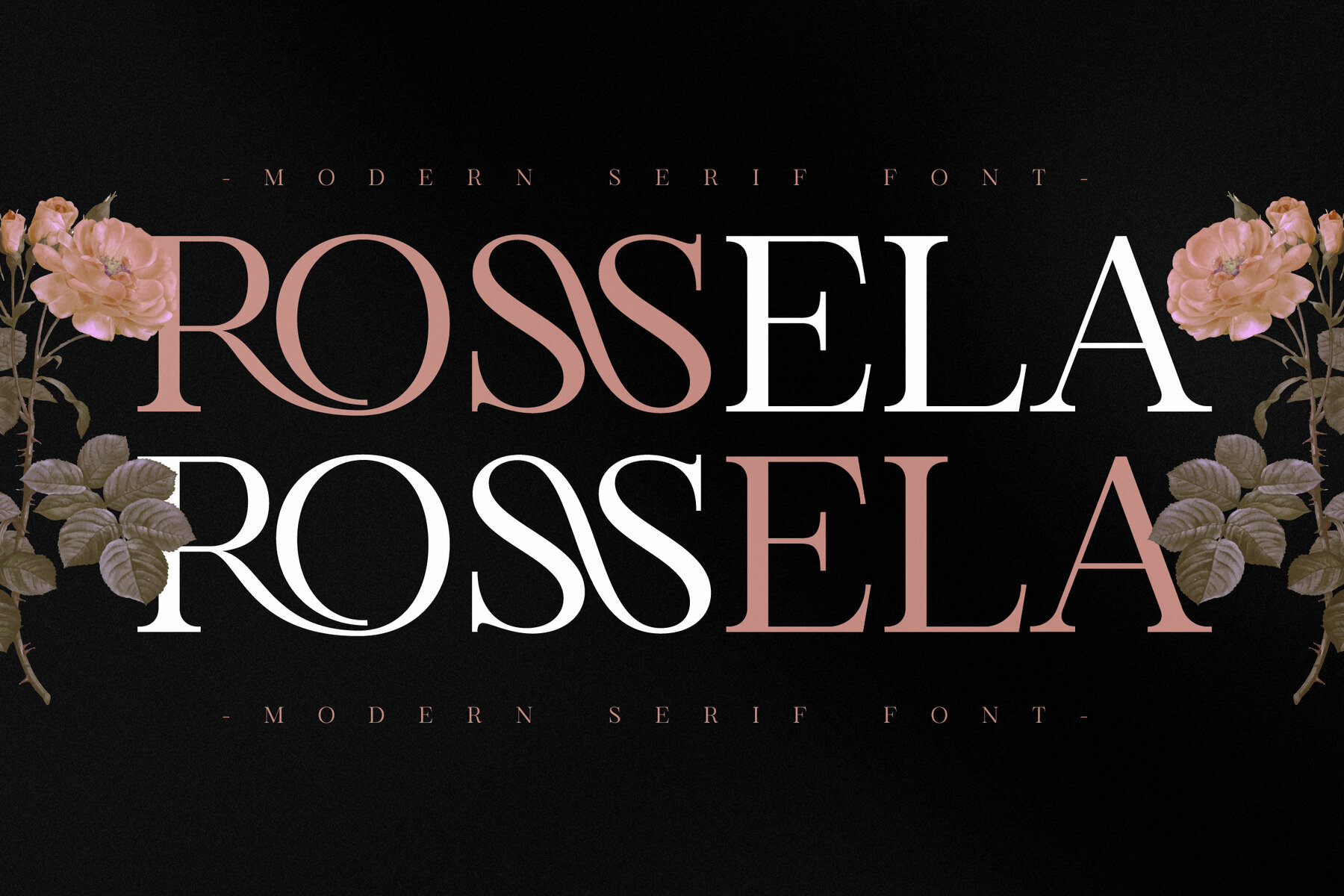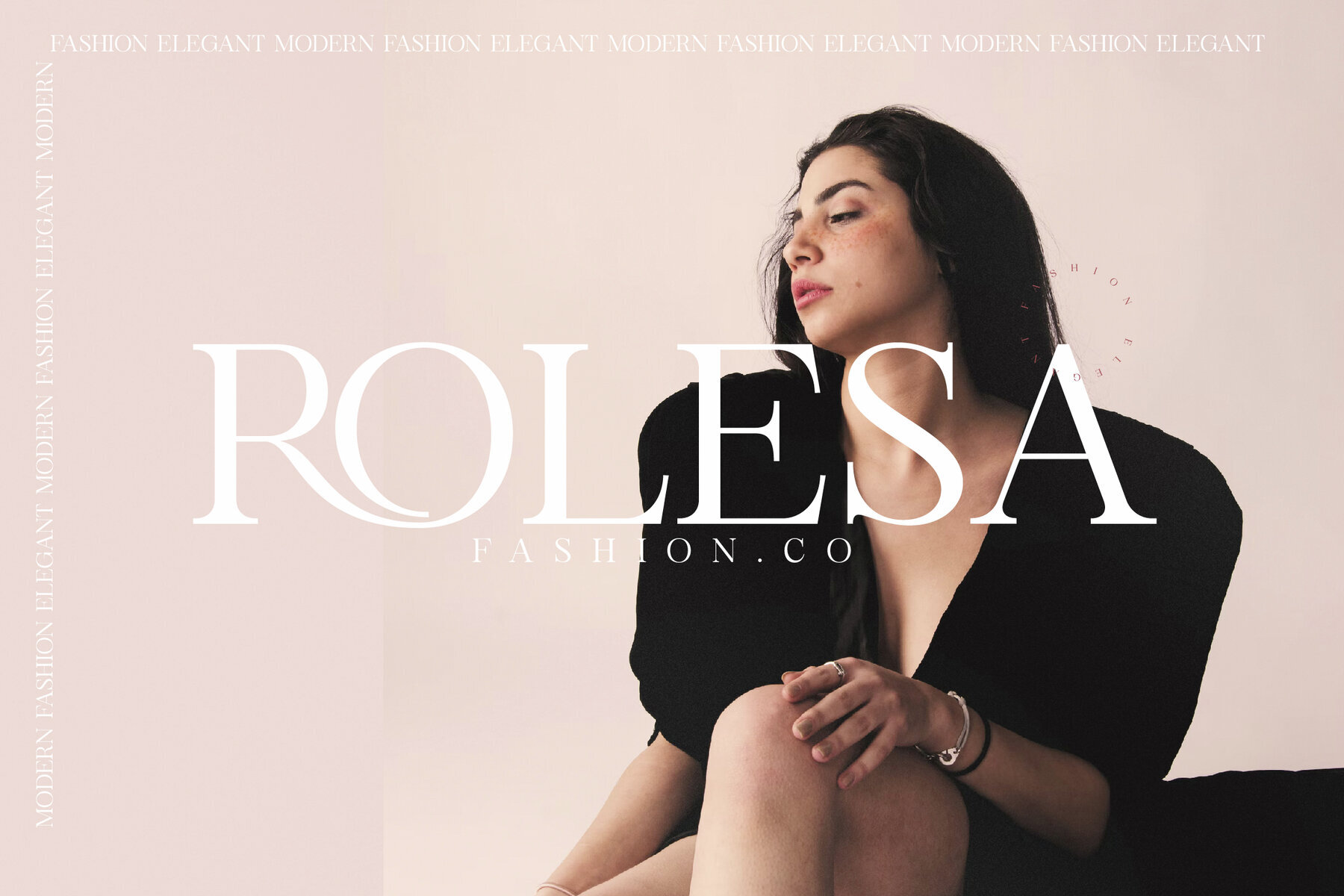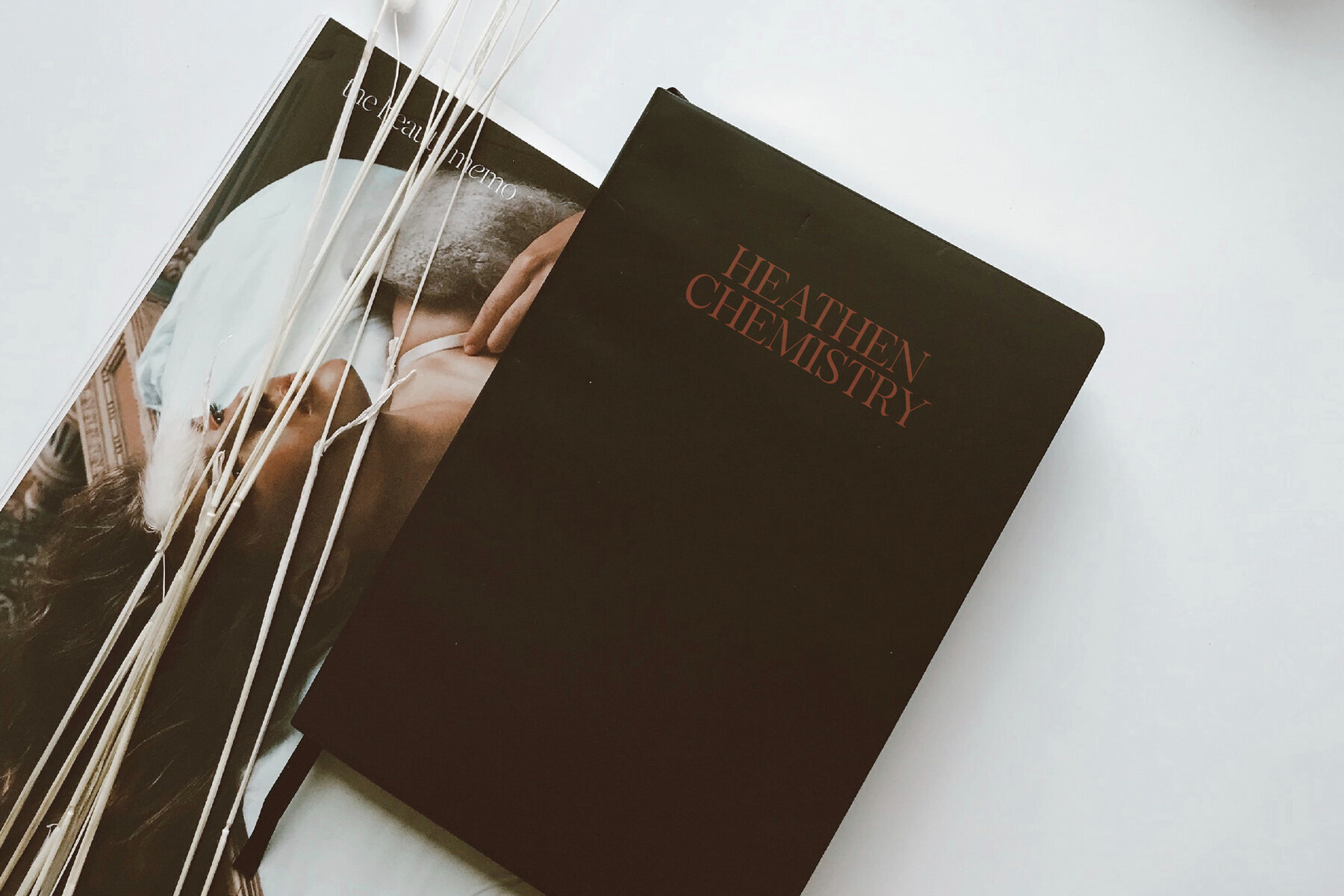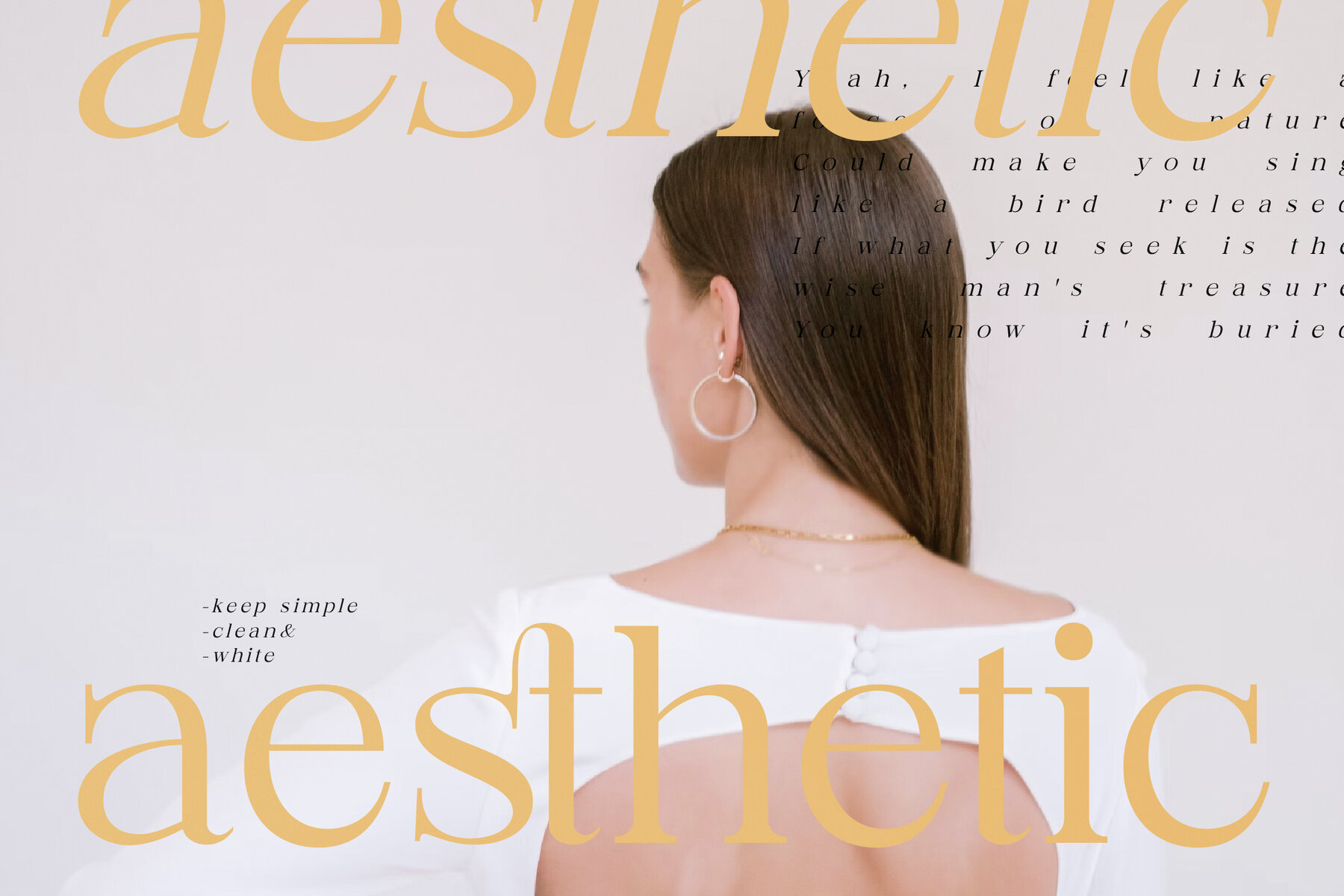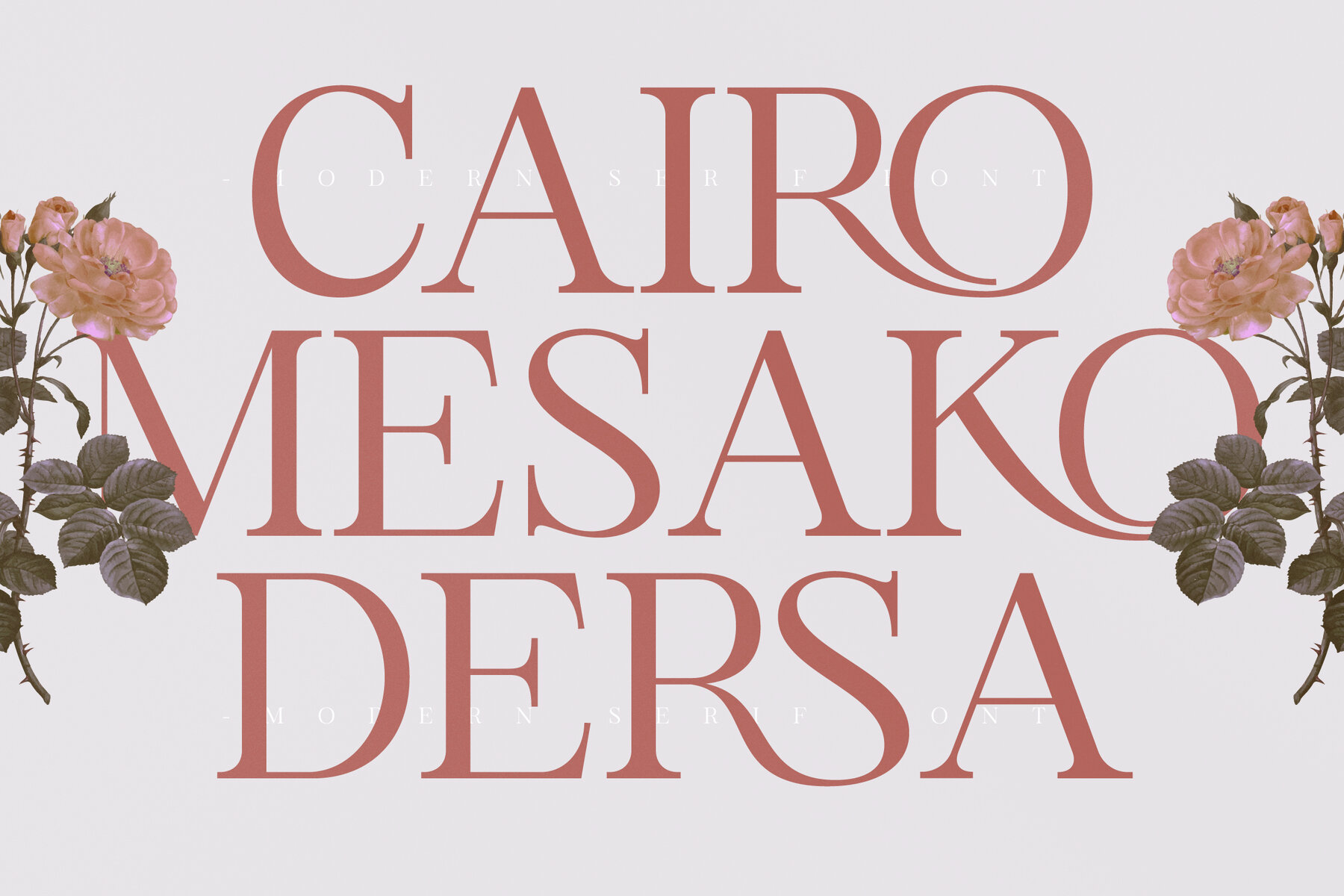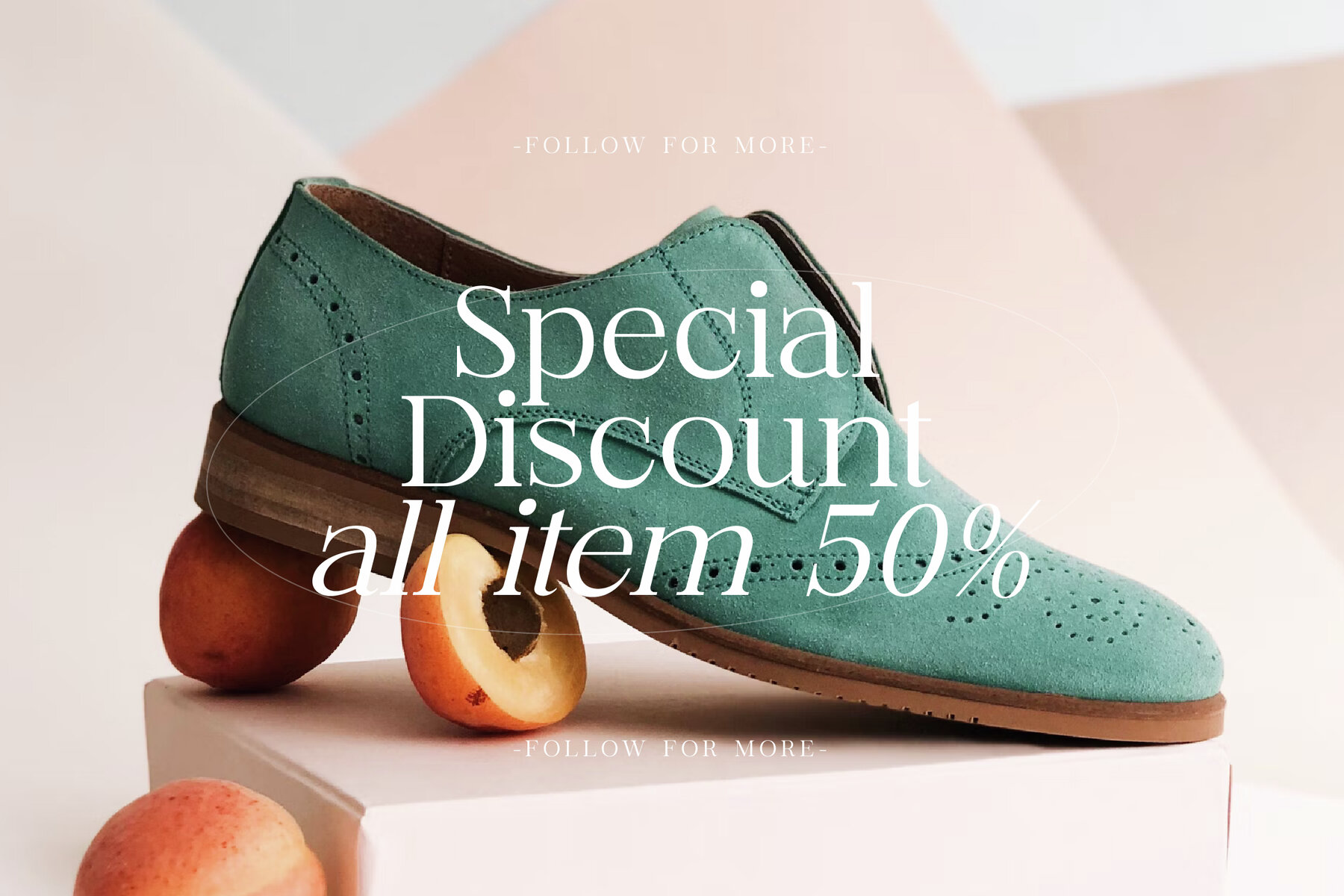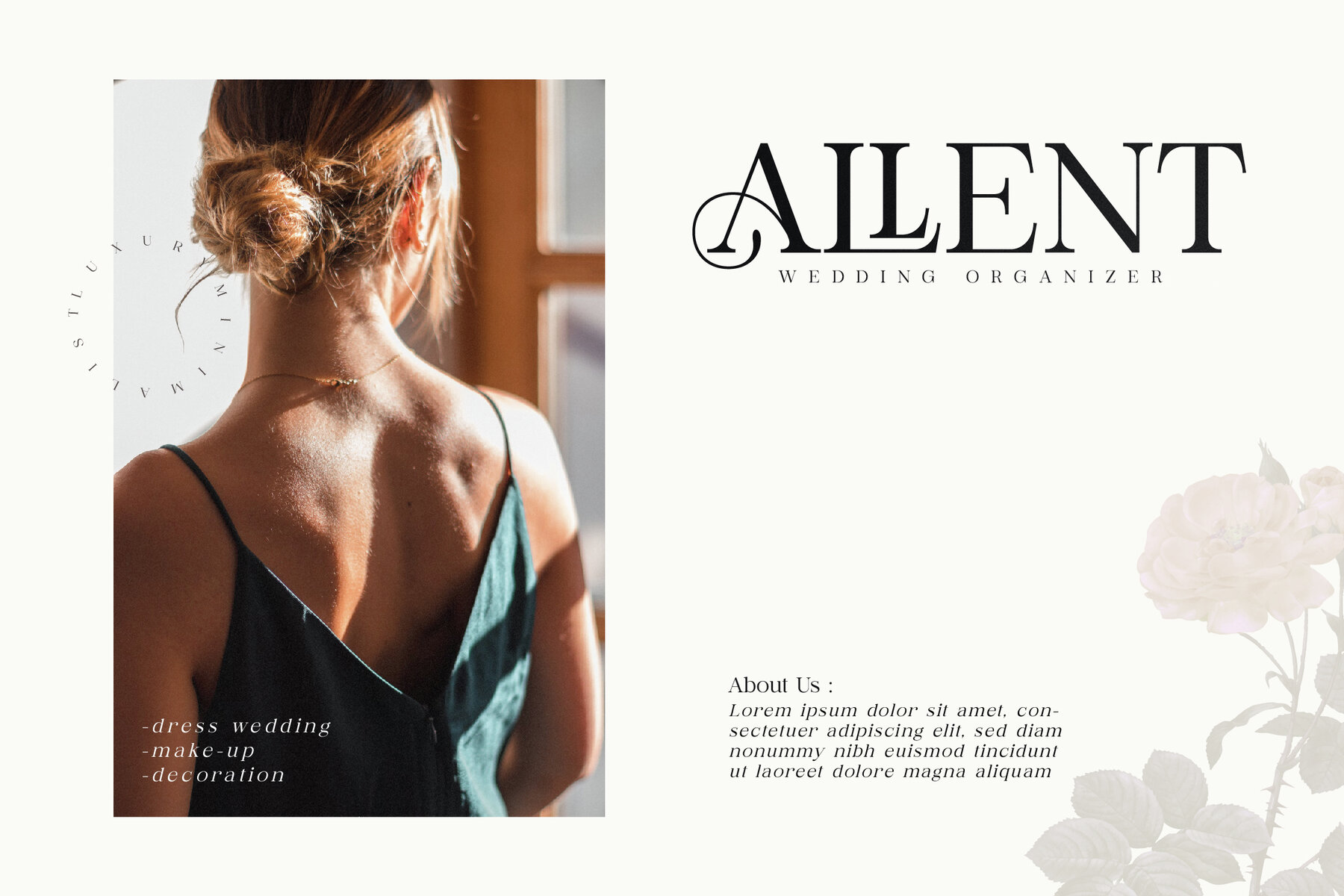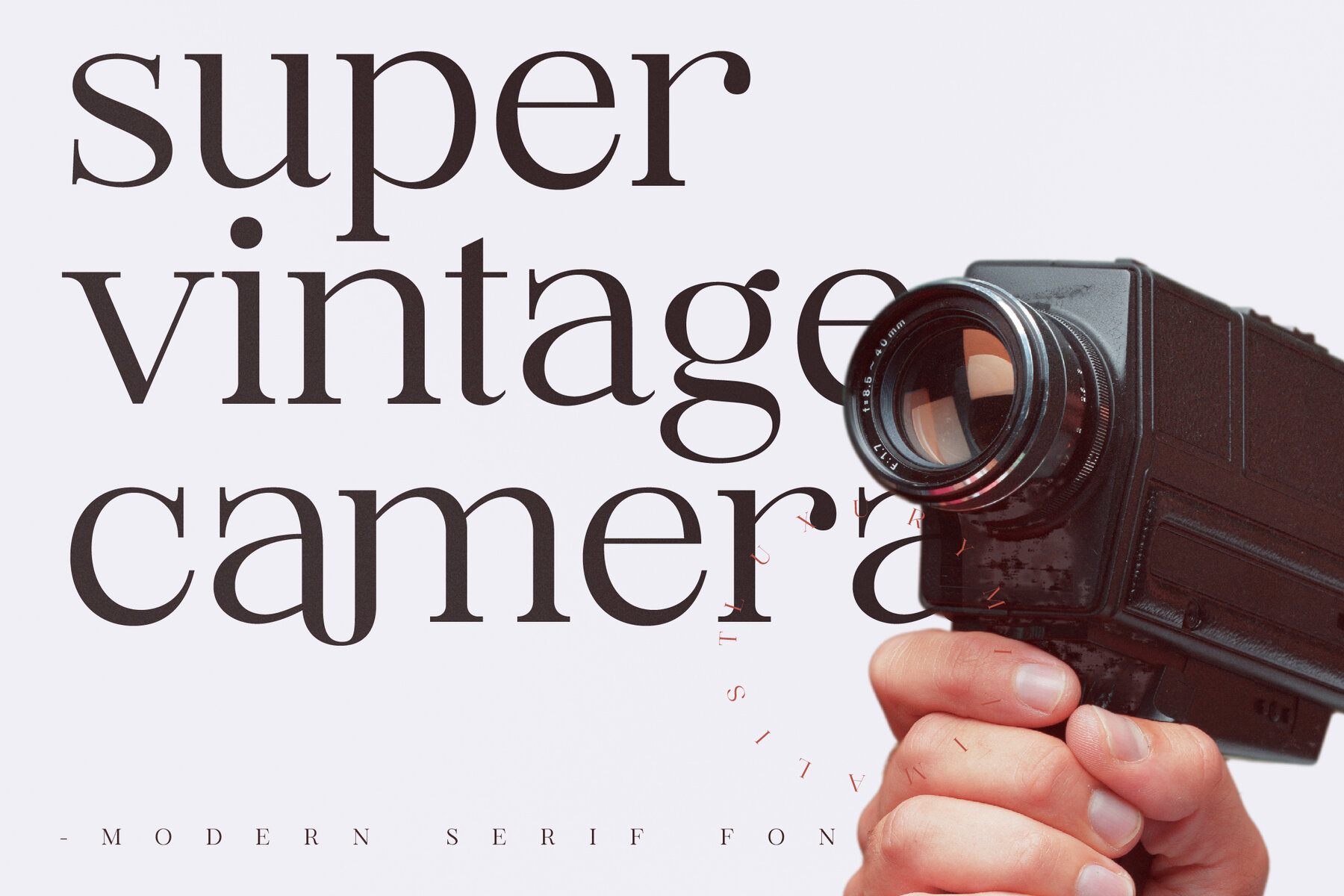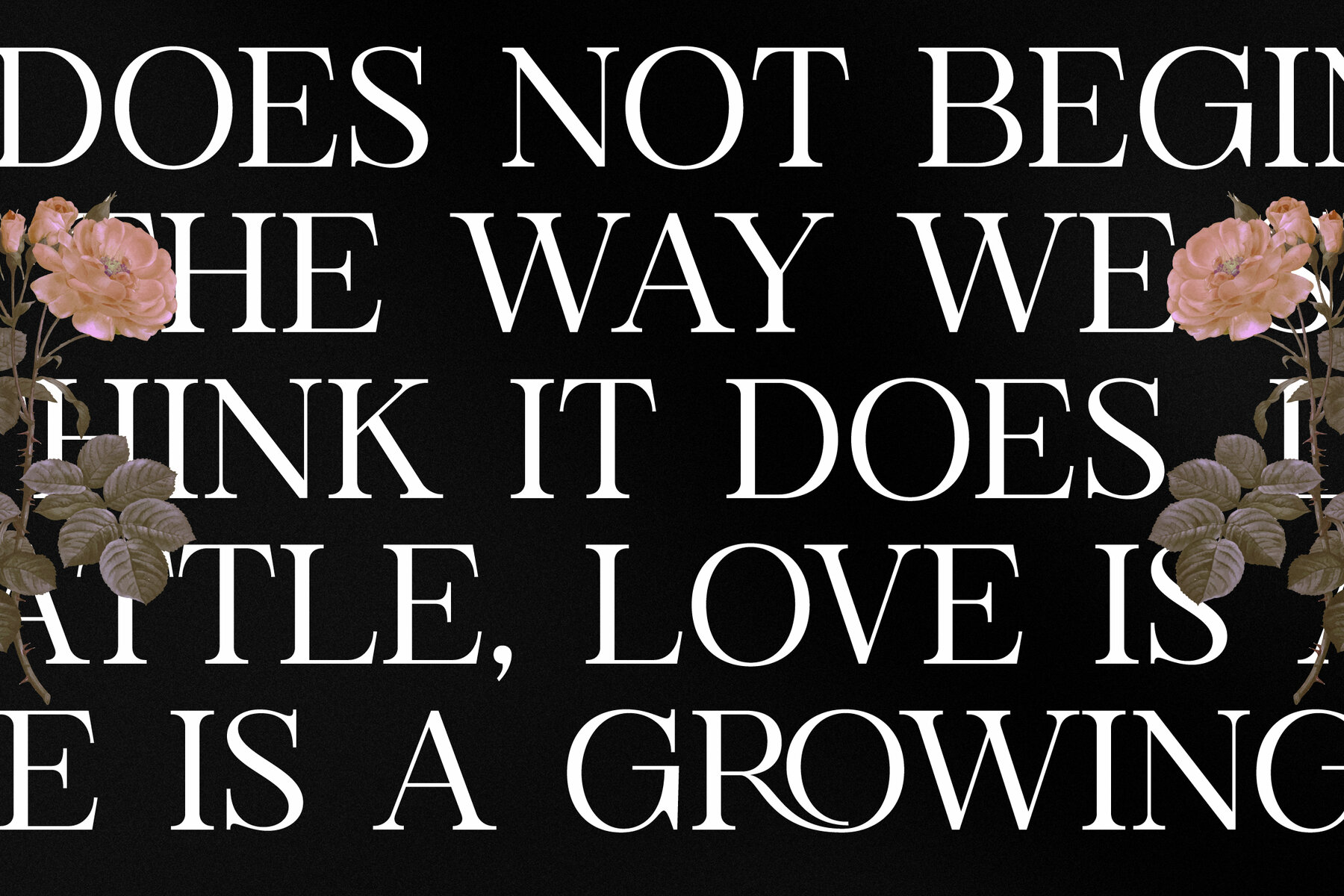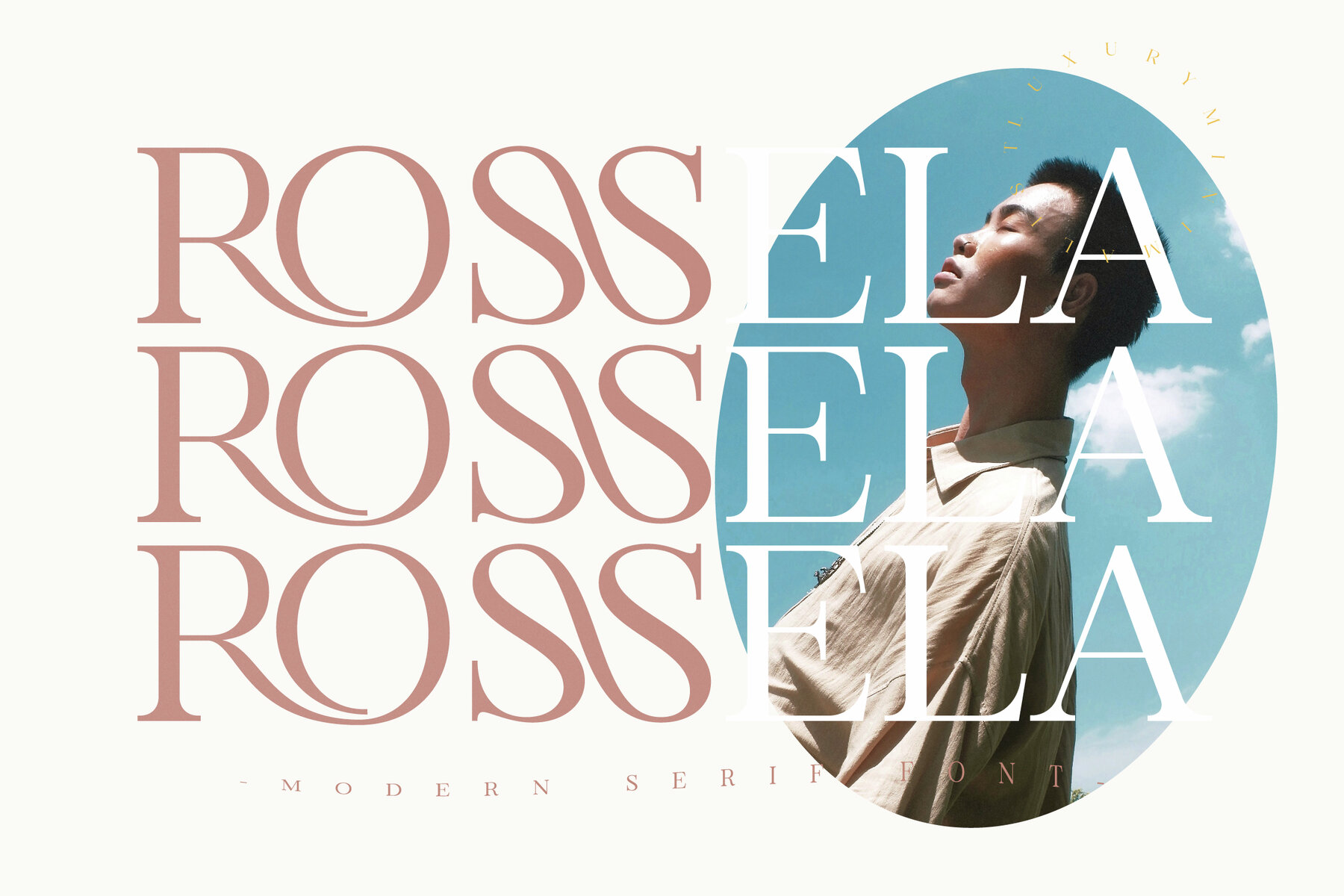
Rossela Font
This elegant serif font showcases refined curves and high contrast, ideal for projects that demand a touch of sophistication and luxury. Its classic and formal nature makes it perfect for editorial layouts, luxury branding, and high-end advertising. Use this font to bring a sense of timeless elegance to your design projects. What’s Included :